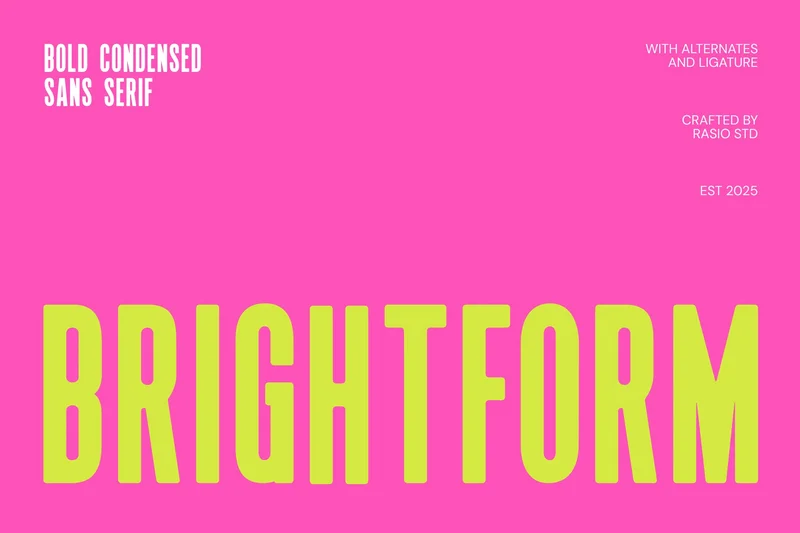
Brightform Bold Condensed Sans Serif
Brightform is a bold condensed sans serif font that delivers high-impact and modern style for versatile design applications. Its tall and narrow letterforms make it perfect for headings, logo modern elegant designs, professional font projects, and premium font branding. With clean geometry and strong vertical presence, Brightform works seamlessly for sports fonts, modern bold layouts, technology logo designs, and minimalist font compositions. Ideal for corporate font needs, luxury brand promotions, and modern futuristic campaigns, this font also shines in poster designs, packaging, and editorial titles.
Relevance and Use Cases is perfect for branding, logo design, editorial titles, posters, advertising, packaging, technology branding, signage, website headers, corporate identity, magazine layouts, modern campaigns, bold statements, social media graphics, startup branding, high-impact marketing, luxury product labels, urban design projects, merchandise designs.
Numeral & Punctuations